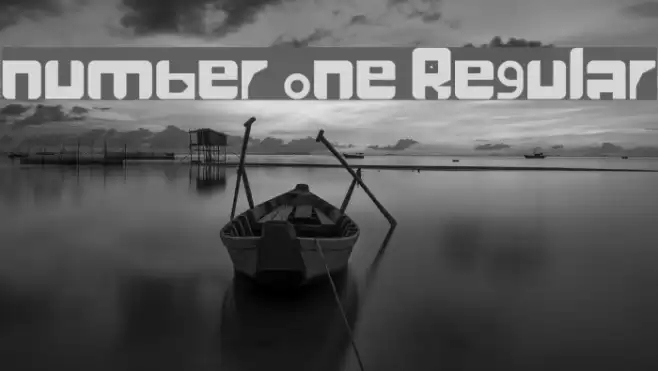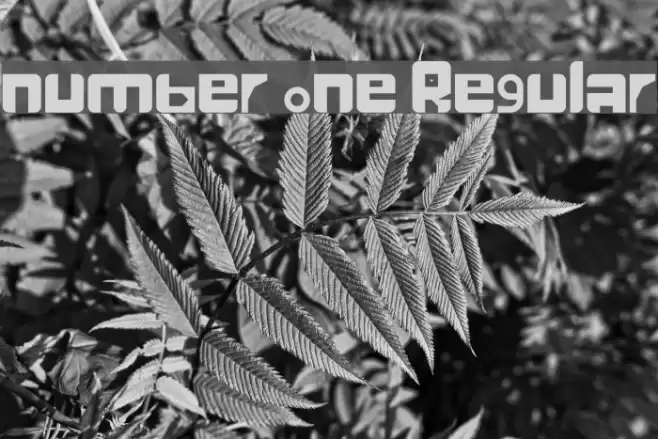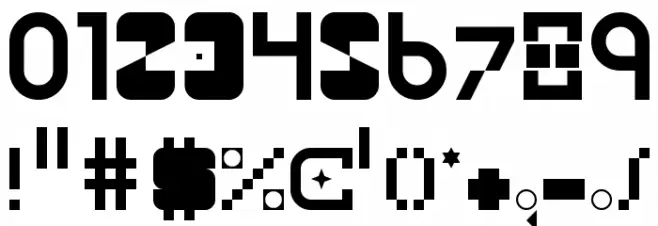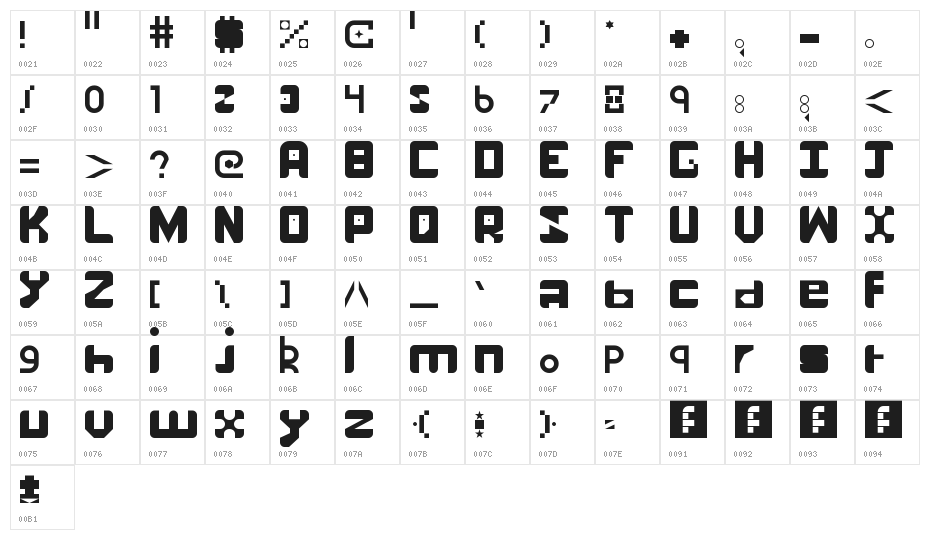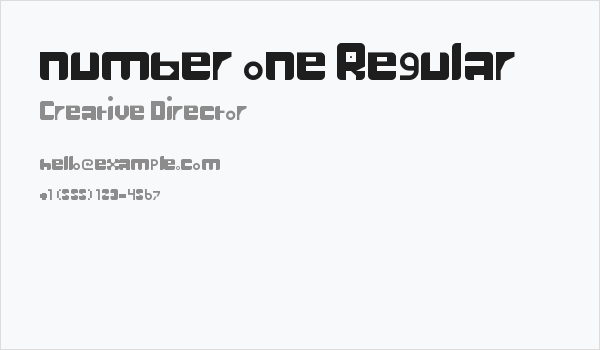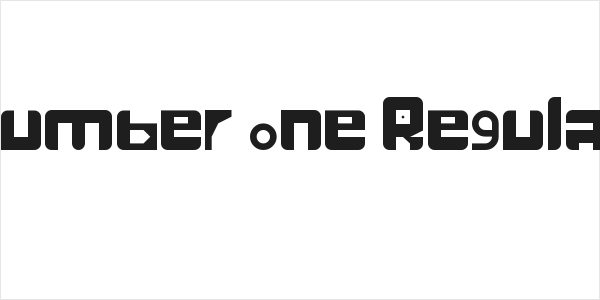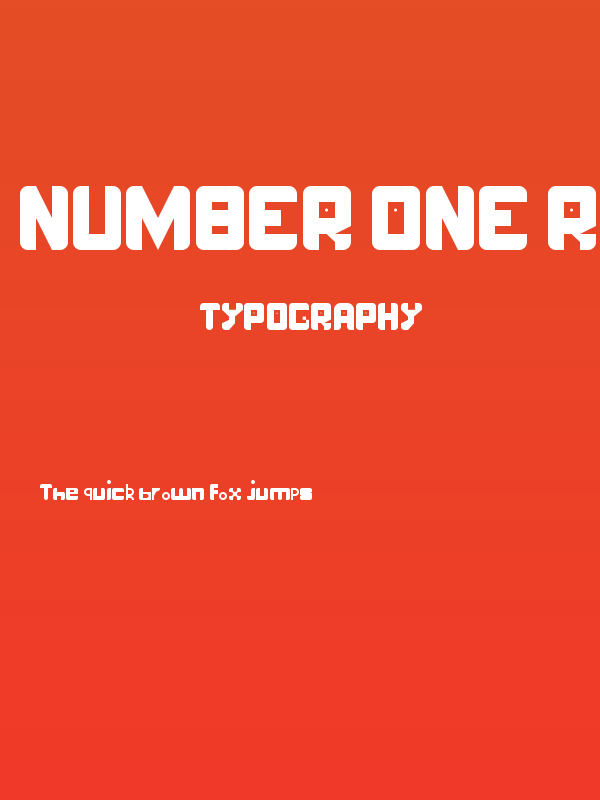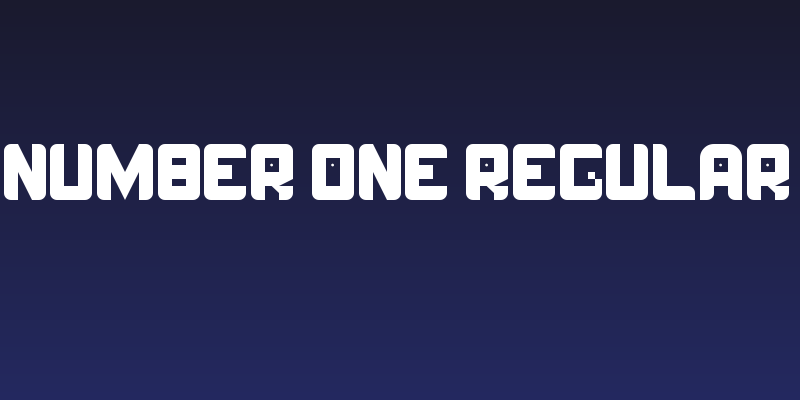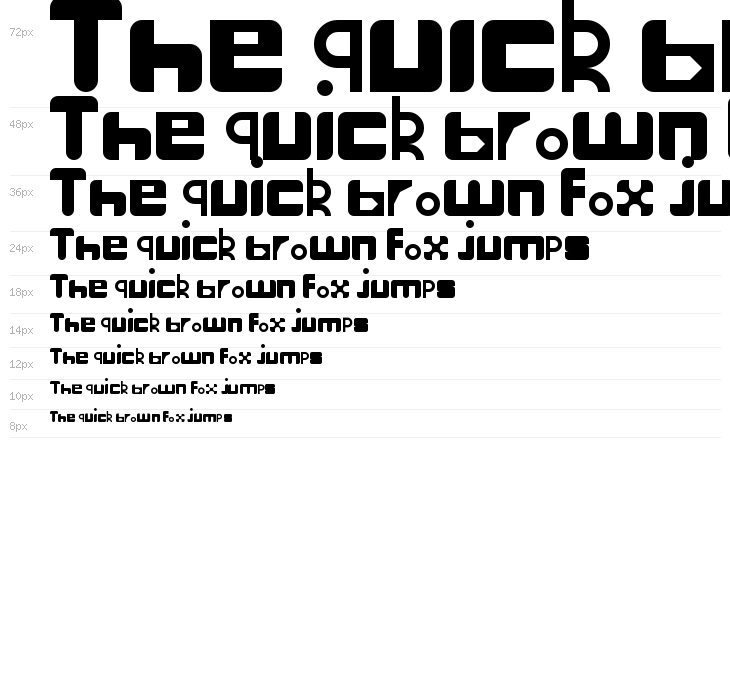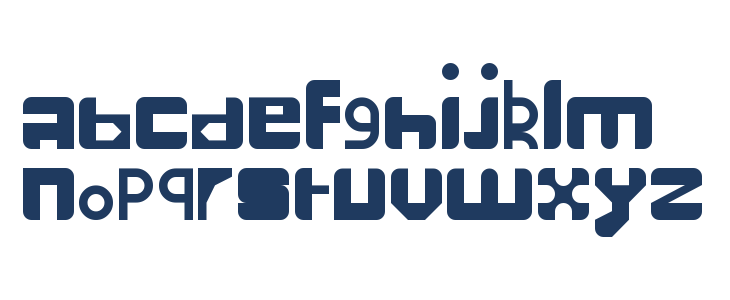
number one Regular Font
number one Regular Description
This font features a bold, geometric design with a futuristic and digital aesthetic. The characters are constructed with thick, block-like shapes, giving them a strong presence. The angular and squared-off edges contribute to a modern, tech-inspired look. The uppercase and lowercase letters maintain a consistent style, with some unique variations in certain characters, such as the lowercase 'g' and 'q'. The numerals and special characters follow the same design principles, ensuring uniformity across the font. This font is ideal for projects that require a bold and impactful visual statement.
A bold, geometric font with a futuristic and digital aesthetic from Uncategorized fonts.
- Proposed Projects: Ideal for technology branding, digital interfaces, video game titles, and futuristic-themed designs.